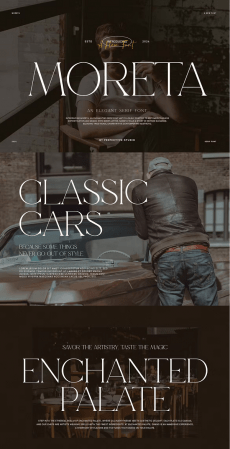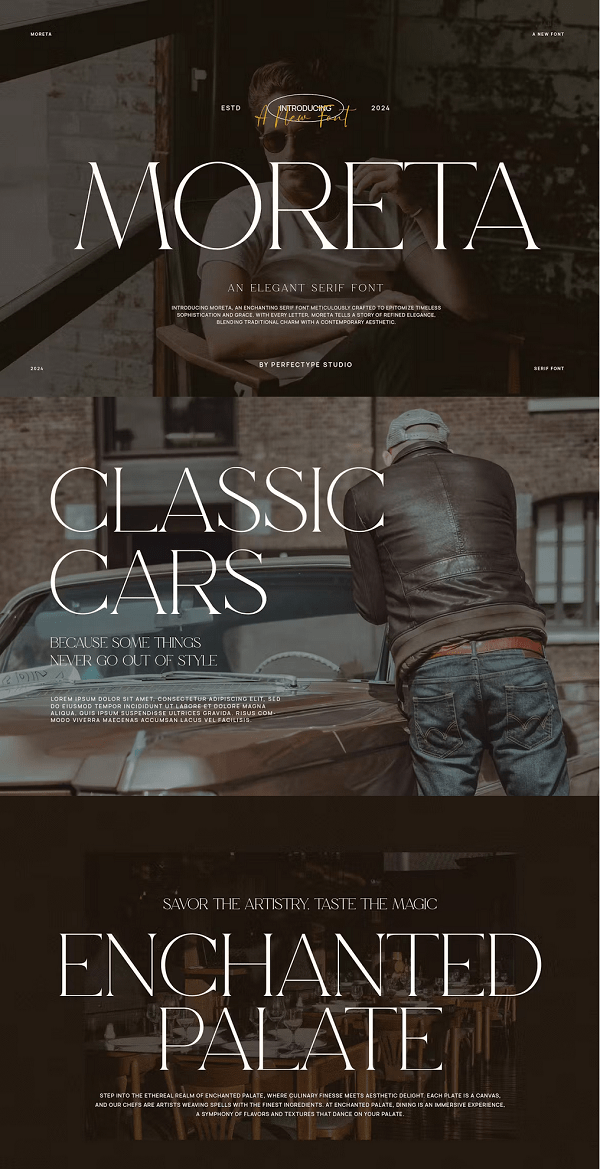
EE - Moreta Elegant Serif Font Typeface 5HZQP9Z
Is a unique and very elegant font for branding and logo designs Elegant serif typeface combined with a classy and modern style. This type of font is very suitable for your various needs such as branding projects, logos, wedding designs, social media posts, advertisements, product packaging, product designs, labels, photography, watermarks, invitations, stationery, and any project, created with high level of readability. you will not be disappointed if you buy this font!!